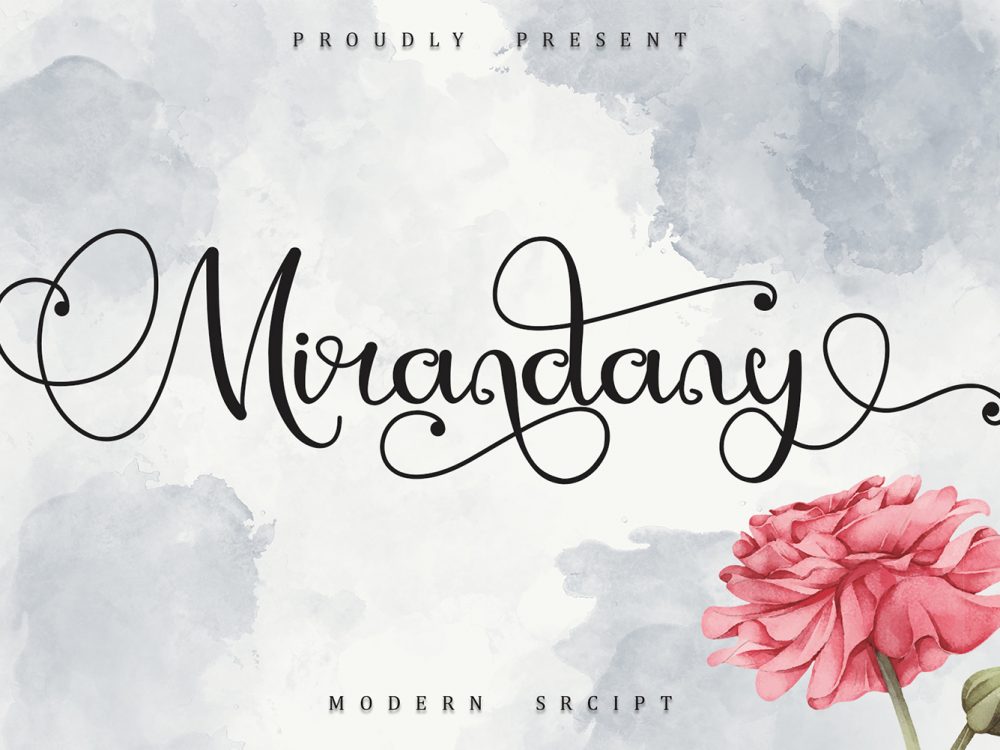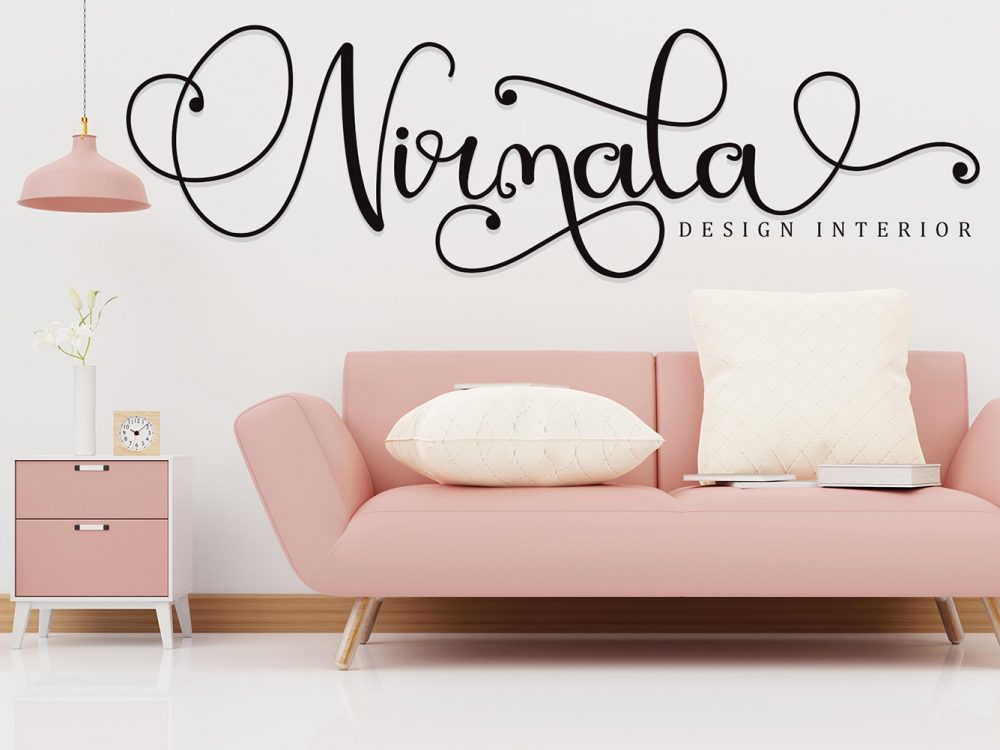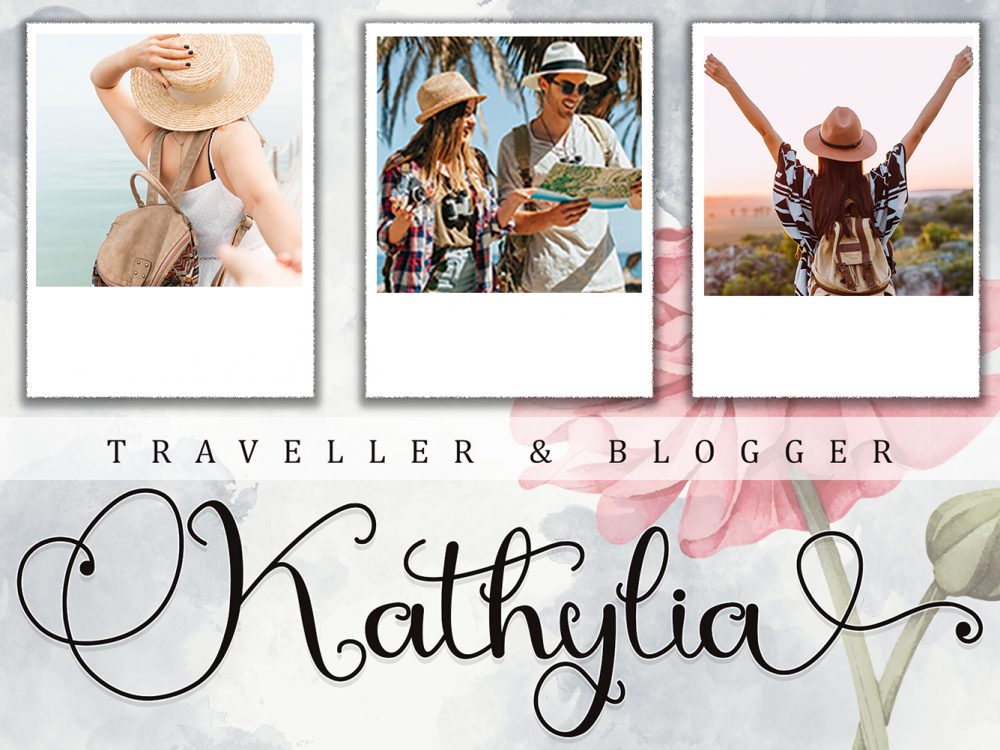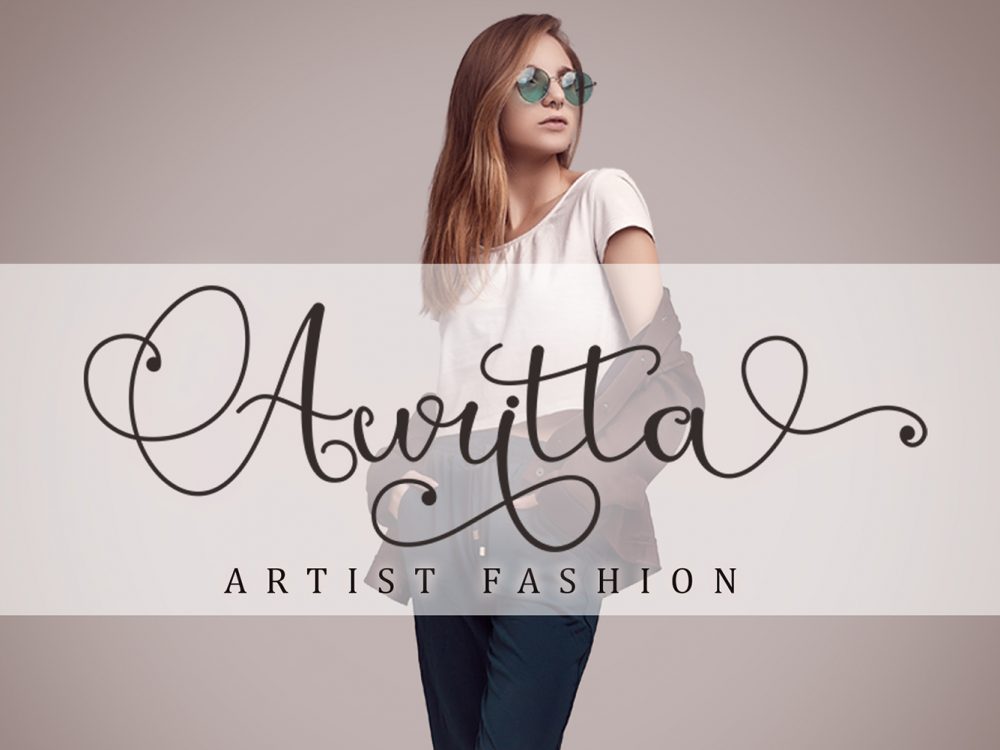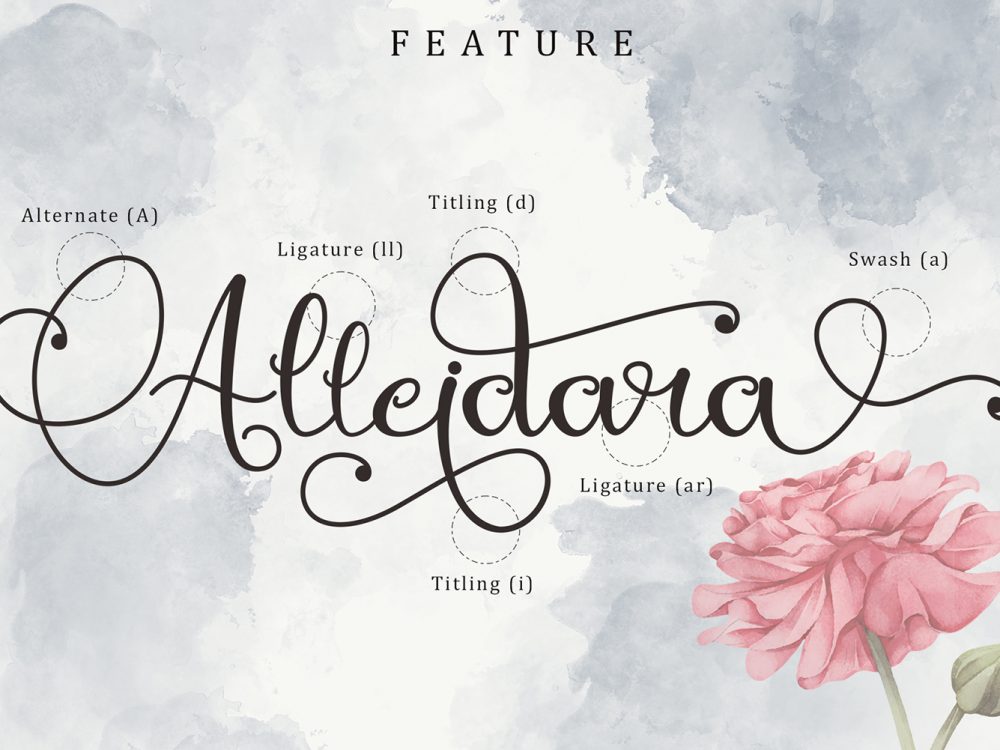
Mirandany Free Font
Mirandany Free Font is an interesting modern handwritten typeface that features an elegant curly typeface. This font is great for creating a variety of projects that require a scripted curly font. This font can make your writing and brand elegant or beautiful. Use this font to create memorable posters, wedding invitations, greeting cards, branding, flyers, t-shirt and pillow prints, and more. Improve the quality and increase the popularity of your design projects by using this font. If you like it don’t forget to check out the full version.